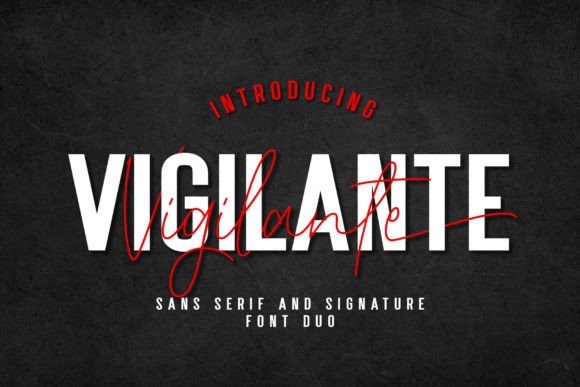
Introducing Vigilante Font, the ultimate choice for creating captivating and impactful political posters. Crafted by the talented team at Madatype Studio, this font duo combines a modern sans serif with a stylish signature font, making it the perfect choice for both casual and elegant design projects.
With Vigilante Font, you can effortlessly elevate your designs, whether you're working on a logo, branding materials, posters, flyers, invitations, or any other creative project. The sleek sans serif font brings a touch of sophistication, while the signature font adds a dash of personality and elegance.
One of the standout features of Vigilante Font is its versatility. It adapts seamlessly to any design style, giving your creations a fresh and polished look. Whether you're aiming for a minimalist aesthetic or a bold and attention-grabbing design, Vigilante Font has got you covered.
The sans serif font boasts a clean and minimalistic design, making it the perfect choice for creating sleek and professional-looking designs. Its simplicity allows it to effortlessly complement the cursive style of the signature font, creating a harmonious blend of modern and elegant typography.
But what truly sets Vigilante Font apart are its beautiful ligatures and alternates. These unique and eye-catching elements add an extra layer of elegance and flair to your texts, making them truly stand out. Whether you're designing a political poster, a social media graphic, or a website banner, Vigilante Font will captivate your audience and leave a lasting impression.
By choosing Vigilante Font, you're not just investing in a font. You're investing in the power of effective communication. This font will help you convey your message with clarity and impact, ensuring that your designs leave a lasting impression on your audience.
Transform ordinary text into extraordinary works of art. Let Vigilante Font be your secret weapon in creating stunning and impactful designs that will grab attention, evoke emotions, and make a lasting impact. Take your design game to new heights with Vigilante Font. Download now and let your creativity soar!